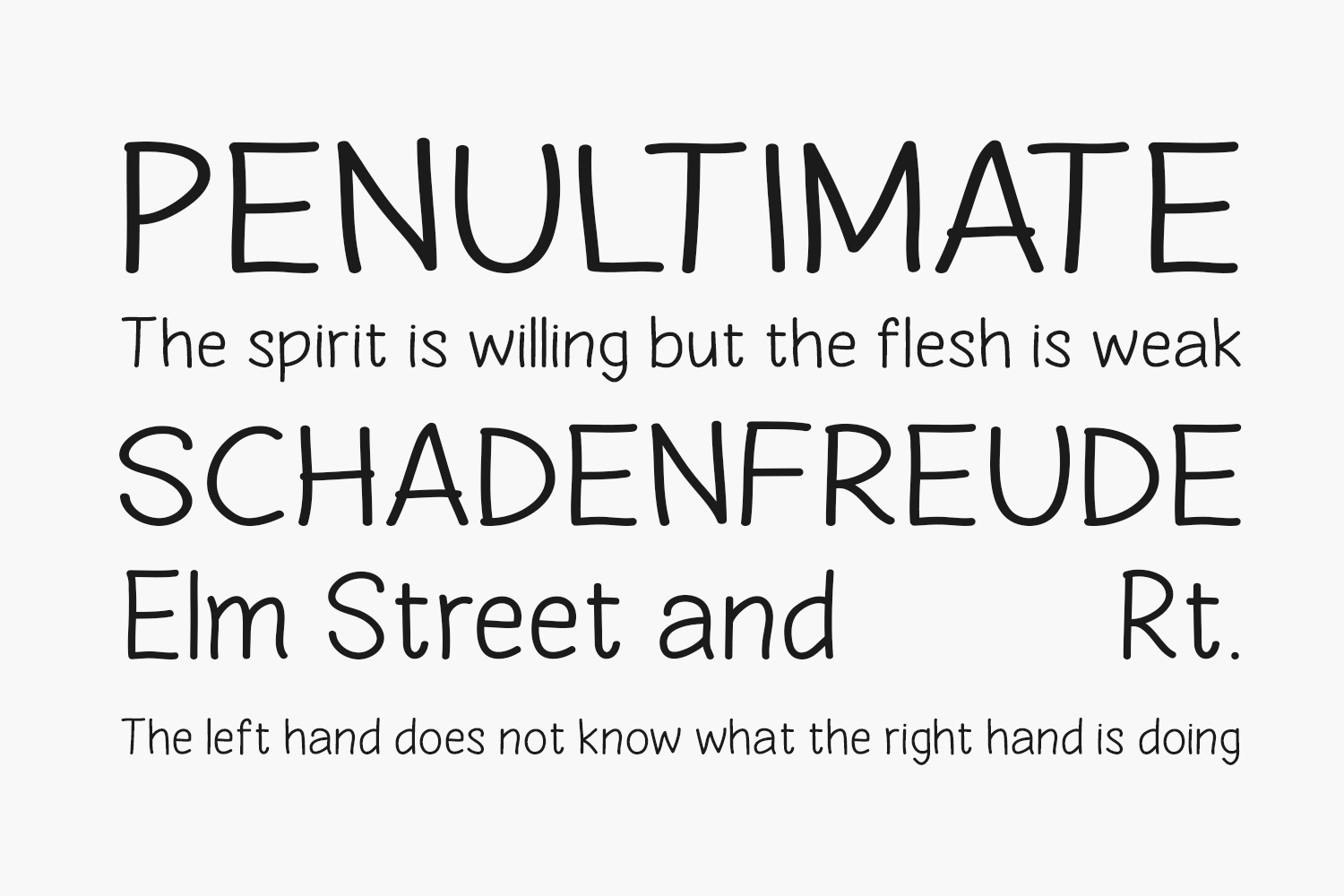
Introducing Summer Dreams Free Font, a fresh handwritten font tailor-made for stationery, logos, t-shirts, print design, website headers, photo frames, flyers, music album covers, posters, image sliders, and so much more. Incorporate this font into your cherished creative projects and watch as it breathes life into them. Summer Dreams Free Font is a demo and free for personal use. Please purchase the full version for commercial use.